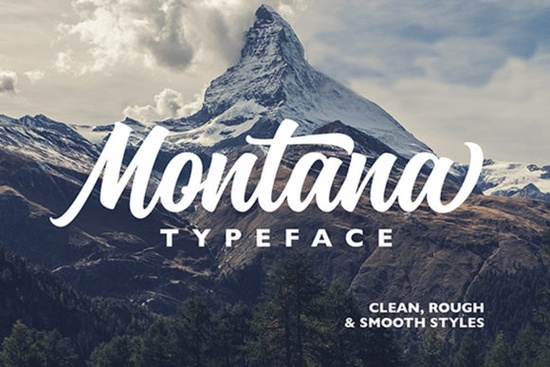
Montana Font is a standout choice for anyone looking to add a touch of personality to their design projects. This cursive, thick-lettered handwritten font brings a sense of strength and confidence to any text it graces. Whether you're working on logos, headlines, or creative prints, Montana offers a stylish and nostalgic feel that can elevate your work without being overwhelming.
Designed with versatility in mind, Montana is perfect for a variety of uses. Its bold strokes and flowing script make it ideal for branding, packaging, and social media graphics. The font’s PUA encoding ensures that all the glyphs and swashes are easily accessible, making it simple to customize your designs with unique flourishes and variations.
If you’re exploring fonts for your next project, Montana stands out as a reliable and expressive option. It fits well within the {category} category, offering a balance between elegance and readability. For those who enjoy experimenting with different styles, Montana provides a solid foundation to build upon.
Why Montana Font Works Well for Creative Projects
One of the key strengths of Montana Font is its ability to convey emotion through typography. The thick, confident strokes give it a strong presence, while the cursive style adds a personal, handcrafted feel. This combination makes it especially appealing for designers who want to communicate warmth and authenticity in their work.
Whether you're creating a logo for a small business or designing a custom t-shirt, Montana can help you achieve a professional yet approachable look. Its readability at larger sizes makes it great for headlines, while its fluidity allows for creative use in smaller text elements.
How to Use Montana Font in Different Design Contexts
For print-on-demand sellers, Montana Font can be a valuable asset. Its boldness ensures that it stands out on products like mugs, posters, and apparel. When paired with complementary fonts, it can create a cohesive and visually striking design.
Small businesses looking to establish a unique brand identity may find Montana Font to be an excellent fit. Its dynamic and nostalgic character can help differentiate a brand from competitors while maintaining a clean and professional appearance.
If you’re new to using script fonts, Montana is a great starting point. Its user-friendly design and wide range of applications make it accessible for both beginners and experienced designers. As you become more familiar with its features, you’ll likely find new ways to incorporate it into your workflow.
For more inspiration, check out montana font on Creative Fabrica. This platform offers a variety of high-quality fonts that can support your creative projects.
Before finalizing your design, take a moment to test Montana in different sizes and contexts. Seeing how it performs in real-world scenarios can help you make informed decisions about its suitability for your needs.
As you continue to explore typography, remember that the right font can make a big difference in how your message is received. Montana Font is a versatile and expressive option that can help you achieve the look you want with ease.
Consider adding Montana to your font library if you’re looking for a reliable and stylish typeface. Its combination of strength and grace makes it a valuable tool for a wide range of creative endeavors.
Take a moment to review your current font collection and see where Montana might fit best. Whether you're working on a personal project or a client's design, this font has the potential to add a unique and memorable touch.
Once you’ve had a chance to work with Montana, you may find yourself reaching for it again and again. Its balance of style and functionality makes it a go-to choice for many designers.
Try using Montana in a few different projects to see how it performs. You might be surprised by the positive impact it can have on your designs.